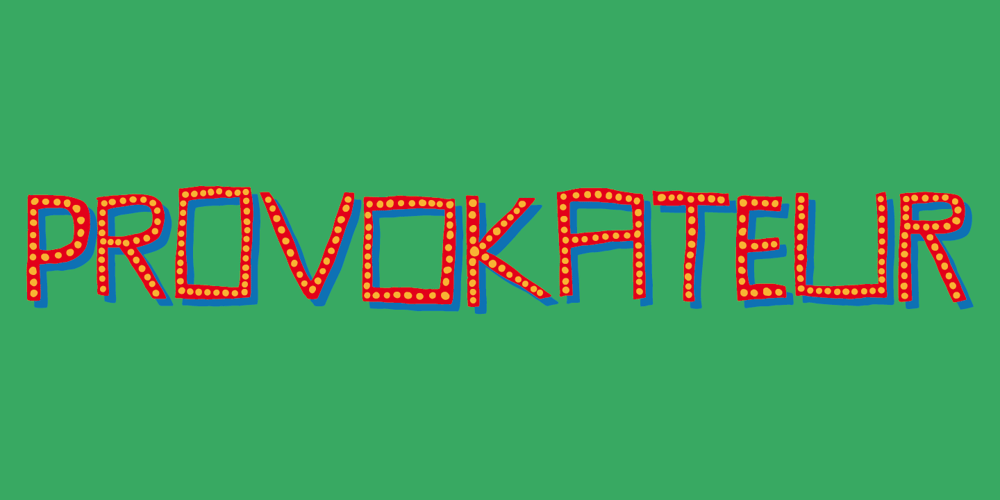
Provokateur Font Family was designed by Jakob Fischer and published by PizzaDude.dk. Provokateur contains 3 styles and family package options. Provokateur is probably provocative…not in a bad way, but in a way you can’t comprehend! Most letters are square, but here and there is a curve. The font is handdrawn and that is pretty obvious when you see the letters at a large scale. Comes with extensive language support, and contextual alternates – 8 different versions of each letter which cycles as you type. Great way to avoid the same kind of letter appearing. Use the 3 versions as you please, or mix them for funky results! 🙂